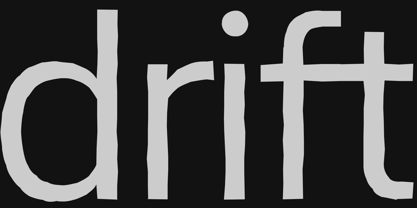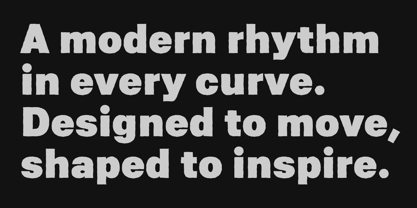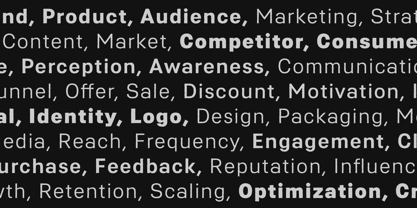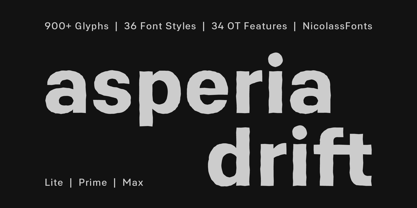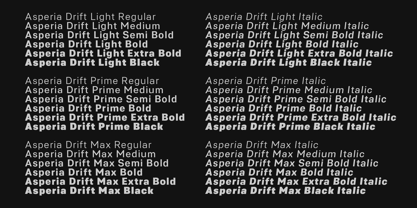
Asperia Drift
by NicolassFonts
The Asperia Drift Font Family was designed by Nikolay Savchuk and published by NicolassFonts. Asperia Drift contains 36 styles and family package options.
Asperia Drift is a modern sans serif with a raw, irregular edge. Instead of perfect geometry, it embraces distortion and tension — every curve feels slightly off, every line carries a touch of movement. This subtle imperfection gives the typeface a distinct, human energy that feels alive and contemporary. Perfect for branding, posters, packaging, and digital projects that demand individuality, Asperia Drift turns precision into personality — a modern voice with a fractured rhythm.
Savchuk Mykola began his career as a graphic designer. Over time, he had a desire to create a font that would reflect his view of typography. ‘They say that all ingenious things are simple, although unique. In my future projects, I want to reflect simplicity on the one hand and uniqueness on the other, providing the ability to adjust individual elements using OpenType features to the fullest. I am amazed by the human ability to discover new and beautiful and I want to develop this ability.’